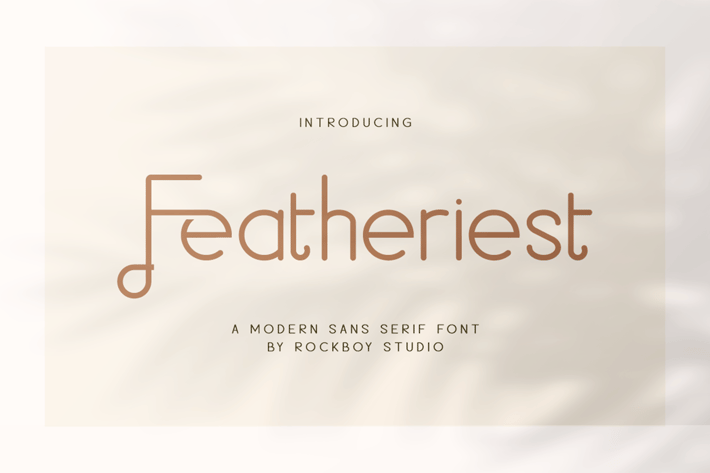
Featheriest - Business Font
RockboyStudio
Featheriest is a minimal and neat sans serif font. It can easily be matched to various projects, so add it to your most creative ideas and notice how it makes them stand out!